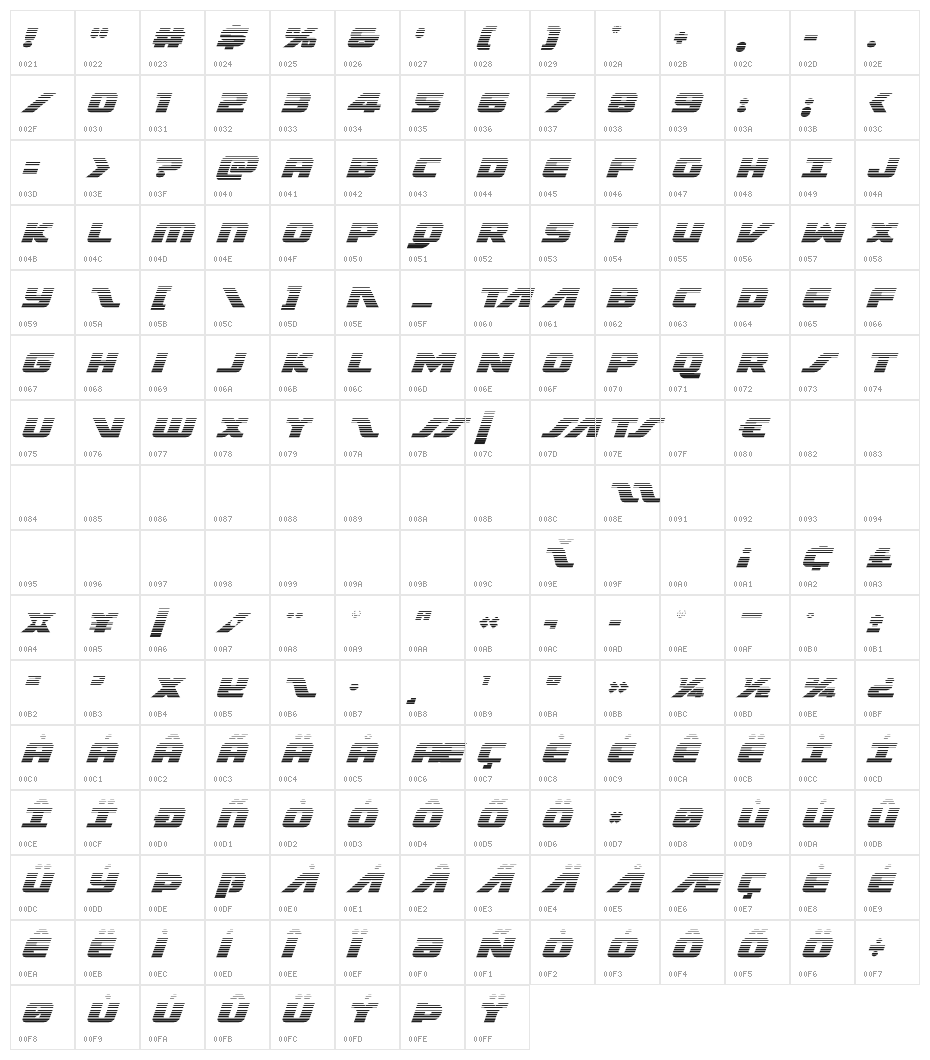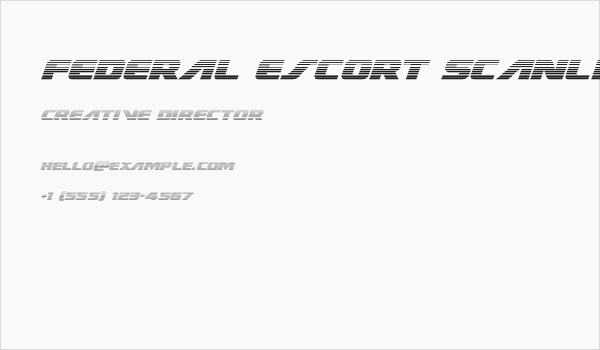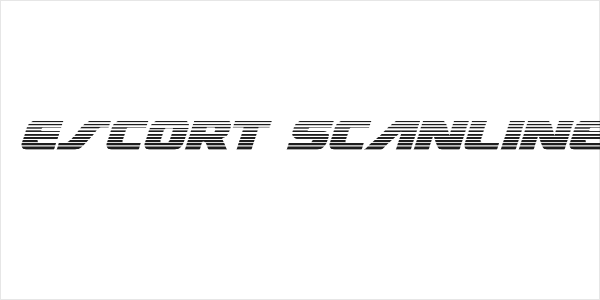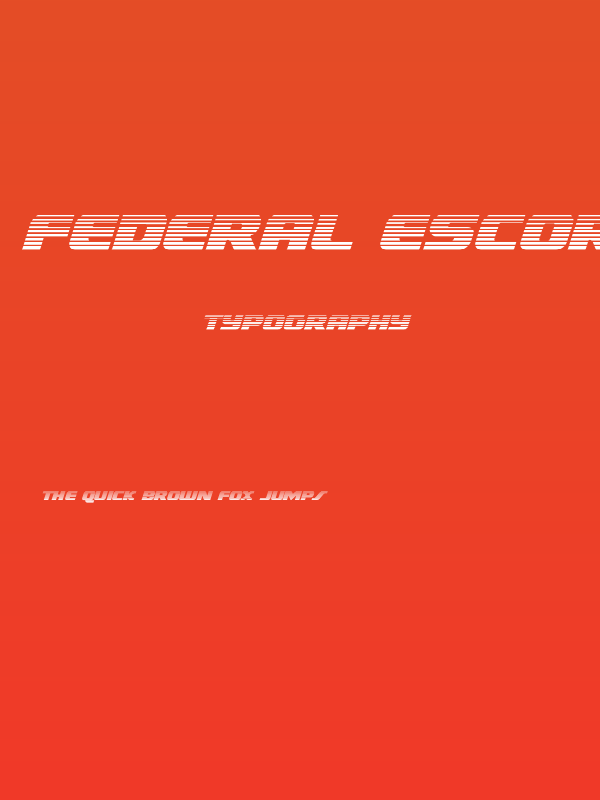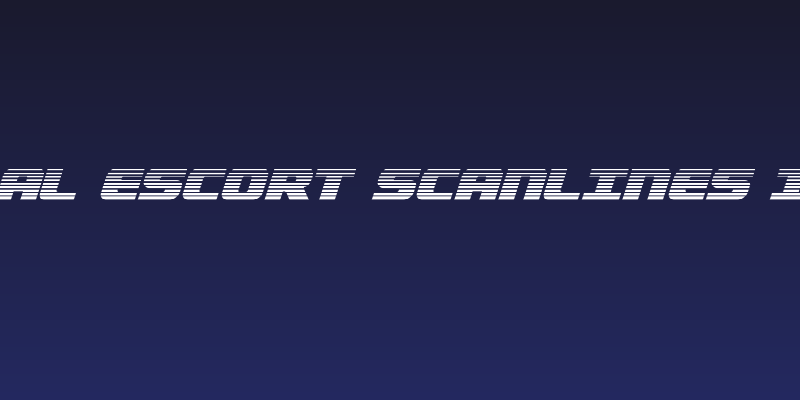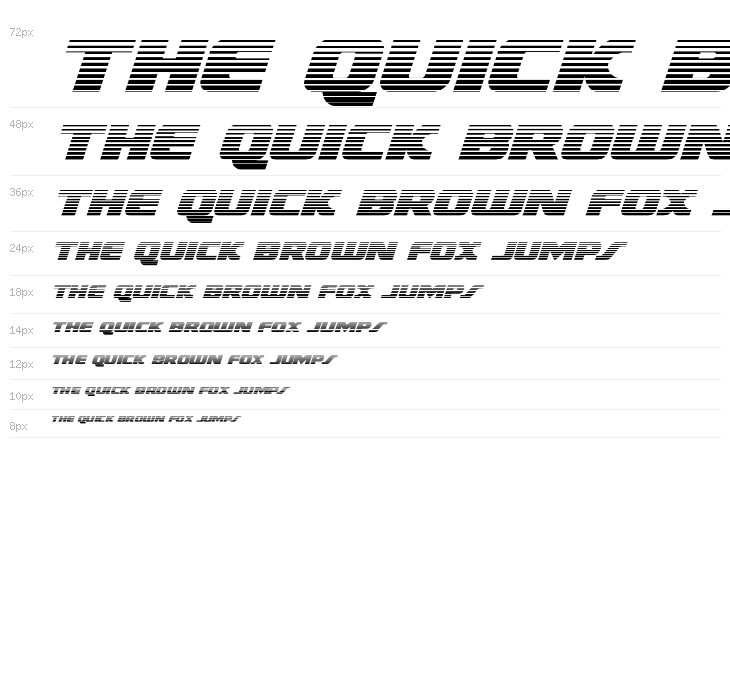
Federal Escort Scanlines Italic Font
Federal Escort Scanlines Italic Description
This font features a unique scanline effect, giving it a futuristic and digital appearance. The characters are italicized, adding a sense of motion and speed. Each letter is composed of horizontal lines that create a dynamic visual effect, reminiscent of old CRT screens or digital displays. The bold and angular design enhances its modern and tech-inspired aesthetic. The spacing between characters is tight, which contributes to its compact and cohesive look. This font is ideal for projects that require a cutting-edge and innovative style.
| Proposed Projects | Ideal for tech-related branding, video game titles, digital art projects, and futuristic-themed posters. |